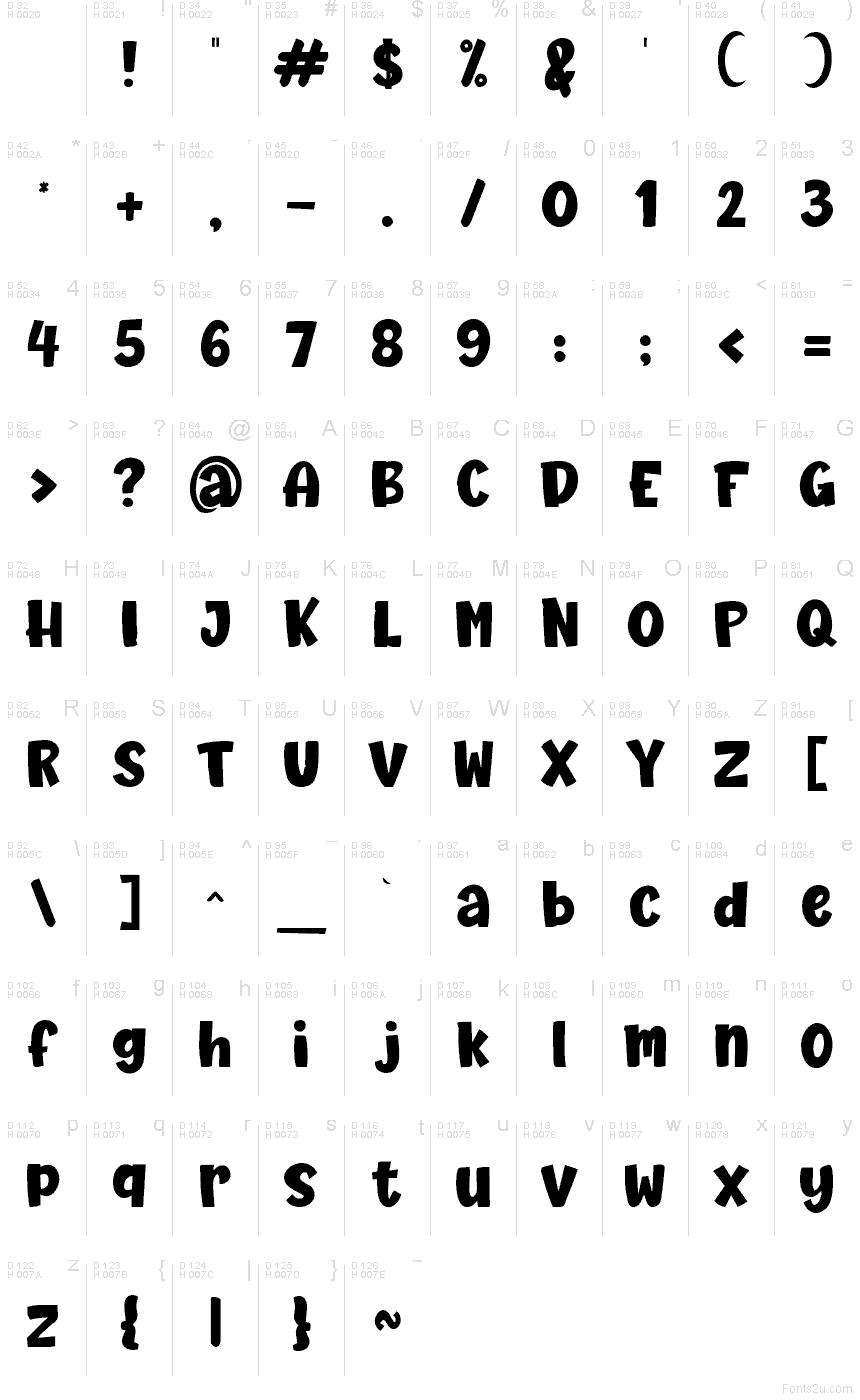
Happy Pets
Happy Pets font by BlackFridayFont FMF is a free cartoon display typeface that feels like it’s been drawn with a thick, inky marker. The letters are chunky, rounded, and a little bouncy, with soft edges that give off a warm, friendly vibe—like a wagging tail or a purring cat. It’s playful without being messy, so text stays bold, clear, and easy to read even at smaller sizes.
Using Happy Pets, your branding immediately feels approachable and kid-friendly, making it a natural fit for pet shop logos, grooming salon signage, vet clinic graphics, children’s book covers, party invitations, and cheerful social media posts. This free font shines when you let it take center stage in headings, then pair it with a simple sans serif for smaller supporting text.